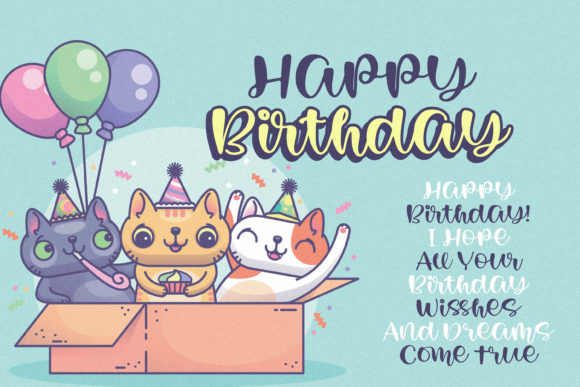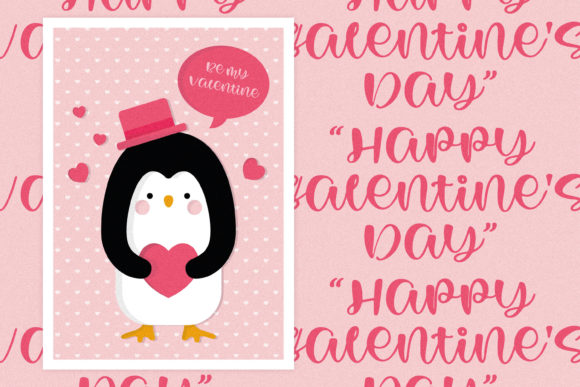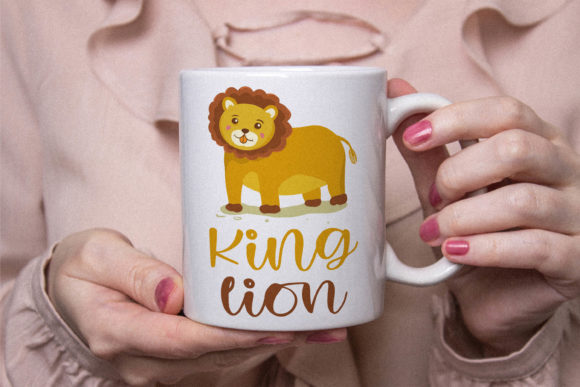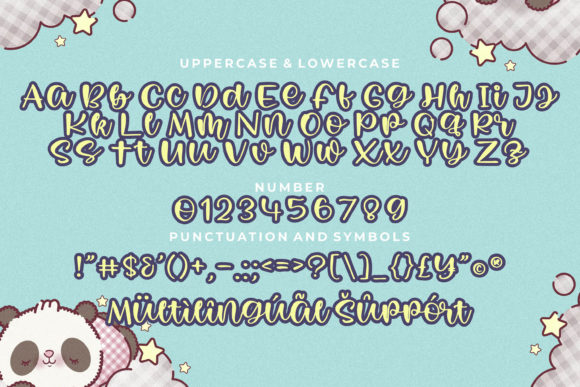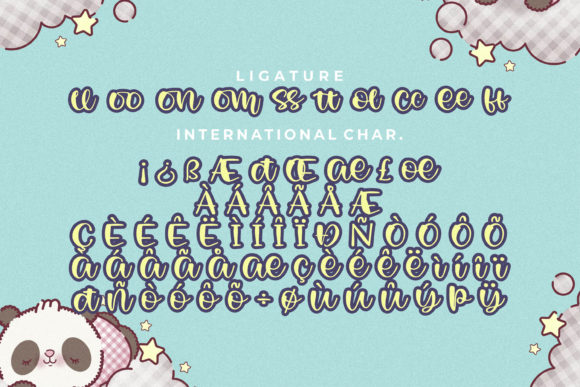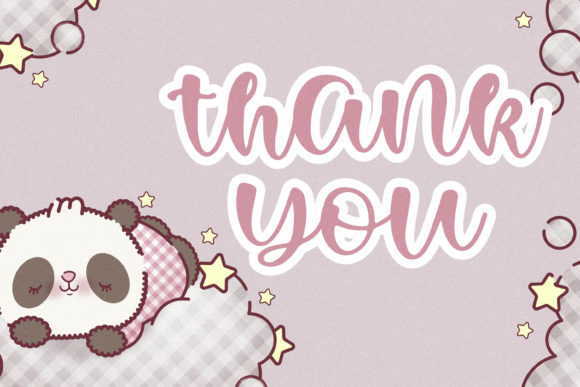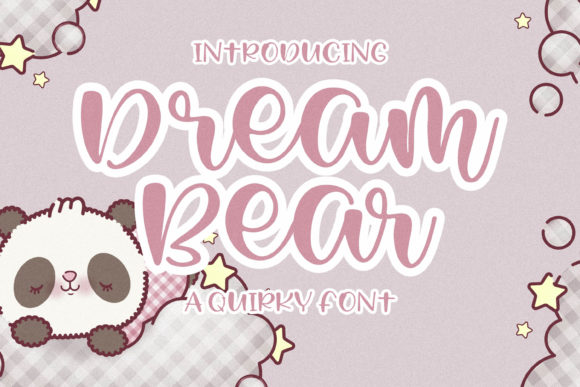
Dream Bear Font: The Quirky Premium Font for Creative Projects
Are you a designer or crafter looking for a unique and premium font to elevate your projects? Look no further than the Dream Bear Font. This quirky font is perfect for adding a touch of whimsy and sophistication to any design. In this article, we’ll explore the features and benefits of the Dream Bear Font, and how it can be used to take your projects to the next level.
What is Dream Bear Font?
Dream Bear Font is a premium font designed for creative projects that require a unique and eye-catching style. It’s a quirky font that’s perfect for adding a touch of personality to your designs. With its elegant and refined lines, Dream Bear Font is suitable for a wide range of projects, from logos and branding to homeware designs and product packaging.
Features of Dream Bear Font
Dream Bear Font has several features that make it a standout choice for designers and crafters. Some of its key features include:
- Quirky and Unique Style: Dream Bear Font has a quirky and unique style that’s perfect for adding a touch of personality to your designs.
- Premium Quality: This font is designed with premium quality in mind, making it perfect for high-end projects that require a sophisticated look.
- Versatile: Dream Bear Font is versatile and can be used for a wide range of projects, from logos and branding to homeware designs and product packaging.
- Elegant and Refined Lines: The font features elegant and refined lines that give it a sophisticated look.
Uses of Dream Bear Font
Dream Bear Font is suitable for a wide range of projects, including:
- Logos and Branding: Use Dream Bear Font to create unique and memorable logos and branding materials.
- Homeware Designs: Add a touch of elegance to your homeware designs with Dream Bear Font.
- Product Packaging: Use Dream Bear Font to create eye-catching product packaging that stands out on store shelves.
- Mugs and Quotes: Add a touch of personality to your mugs and quotes with Dream Bear Font.
- Posters and Shopping Bags: Use Dream Bear Font to create eye-catching posters and shopping bags.
- T-Shirts and Book Covers: Add a touch of elegance to your t-shirts and book covers with Dream Bear Font.
- Name Cards and Invitation Cards: Use Dream Bear Font to create unique and memorable name cards and invitation cards.
- Greeting Cards: Add a touch of personality to your greeting cards with Dream Bear Font.
- Labels and Photography: Use Dream Bear Font to create elegant and refined labels and watermarks for your photography projects.
Benefits of Using Dream Bear Font
There are several benefits to using Dream Bear Font for your projects. Some of the key benefits include:
- Unique and Eye-Catching Style: Dream Bear Font adds a unique and eye-catching style to your projects, setting them apart from the competition.
- Premium Quality: This font is designed with premium quality in mind, making it perfect for high-end projects that require a sophisticated look.
- Versatility: Dream Bear Font is versatile and can be used for a wide range of projects, making it a great addition to any designer’s toolkit.
In conclusion, Dream Bear Font is a quirky premium font that’s perfect for designers and crafters looking to add a touch of elegance and sophistication to their projects. With its unique and eye-catching style, premium quality, and versatility, this font is suitable for a wide range of projects, from logos and branding to homeware designs and product packaging. Whether you’re a professional designer or a crafter, Dream Bear Font is a great addition to your toolkit.